Playful and Bold: Top 10 Bubble Fonts for Eye-Catching Designs
Curated Bubble Fonts
Bubble fonts are the perfect solution when you need to infuse your designs with a sense of fun, whimsy, and boldness. These playful typefaces are characterized by their rounded, soft edges, making them ideal for creating eye-catching posters, flyers, advertisements, and any project that demands attention. Whether you’re designing for a children’s event, a summer festival, or a trendy brand, bubble fonts can add a vibrant touch that stands out.
In this article, we’ll explore ten bubble fonts that can transform your designs into lively and engaging masterpieces. From classic styles to modern interpretations, these fonts offer a variety of options to suit different design needs. Let’s dive into the world of bubble fonts and discover the perfect typeface for your next project.
Clodice exudes a vibrant and playful display aura with its funky bubble style, perfect for adding a touch of joy to any design project.
The bubbly characters of Clodice font bring cheerful and lively vibes to your text, making it ideal for projects aimed at capturing attention and spreading positivity.
Clefy is a display font that combines bubble shapes with a funky style, creating a cheerful and attention-grabbing character. The round and soft bubble forms give it a friendly and approachable look, while the funky elements add a creative and unique touch.
Radey — Bubble Font is a playful display font. Its design is inspired by the shapes of bubbles and clouds. The font has a light, airy feel, perfect for creative projects.
Each character in Radey mimics a bubbly form. The round edges convey a soft and friendly vibe. This font is versatile, suitable for both digital and print media. It’s easy to read, making it great for headings and logos.
Calley draws inspiration from balloons, infusing its design with a playful and buoyant vibe reminiscent of carefree days spent under clear skies.
Embracing the expressive nature of graffiti, This font features bold and dynamic strokes that capture attention and exude an urban edge.
Cocana — The Bubble Font is a playful and bubbly typeface that brings a cheerful and light-hearted vibe to your designs. With its rounded and bulbous letterforms, Cocana exudes a sense of fun and whimsy.
Camei is a bubble font, featuring cute and funky bubble shapes. This display font is perfect for designs aiming to convey a cheerful, cute, and unique impression, adding a playful touch to your projects.
Bages 3D, a display font, invites you into a world of whimsy with its charming bubble-shaped letters, exuding an irresistibly cute aura.
Experience the magic as Bages 3D brings these bubbles to life with an enchanting 3D effect. Each letter pops out, adding depth and playfulness to your designs.
Cocana 3D features a delightful round shape reminiscent of bubbles, infusing any design with a sense of fun and whimsy. Its playful appearance adds a touch of cheer to any display project.
Monaz Vintage features playful bubble-shaped letterforms that evoke a sense of whimsy and nostalgia. Its rounded contours add a delightful touch to any display design project.
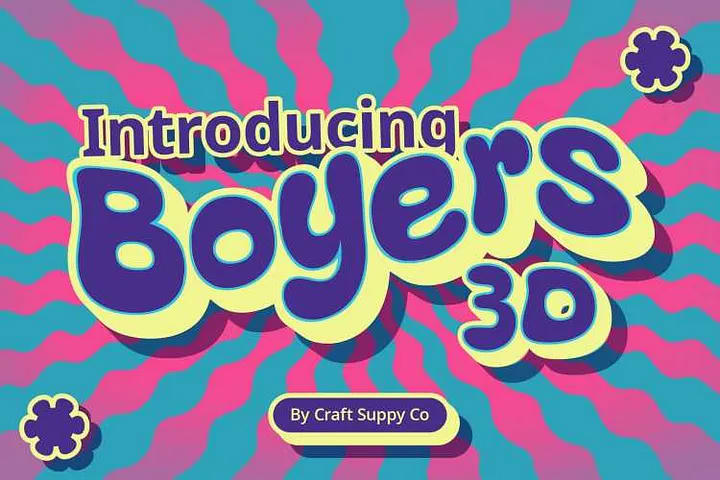
Boyers 3D, a display font with captivating bubble shapes, infuses an unparalleled sense of playfulness, making it perfect for children’s projects.
Every curve in Boyers 3D tells a story of joy. The font’s unique bubble shapes take on a three-dimensional life, adding a delightful touch to your designs.
Conclusion
Bubble fonts are a fantastic way to add a playful and bold touch to your designs. Whether you’re creating posters, flyers, advertisements, or any other project that needs to stand out, these ten bubble fonts offer a variety of styles to suit your needs. From the unique charm of Clodice to the 3D bubble forms of Boyers 3D, there’s a bubble font for every occasion.